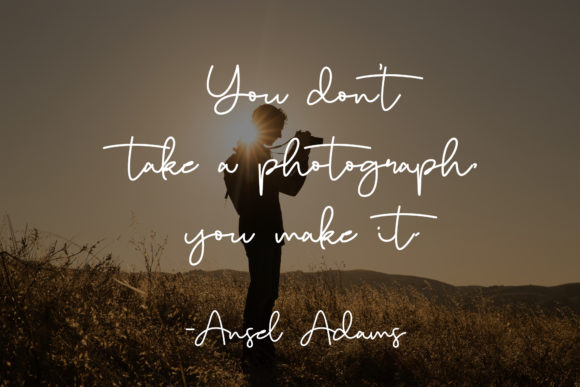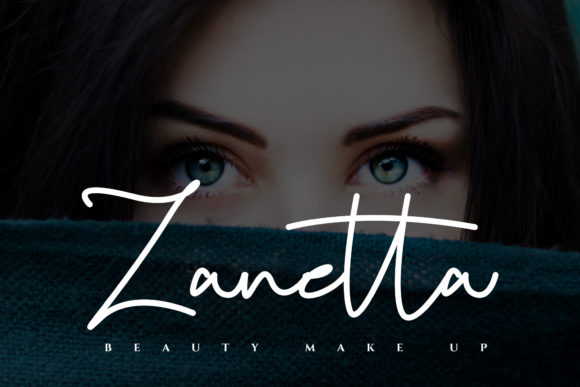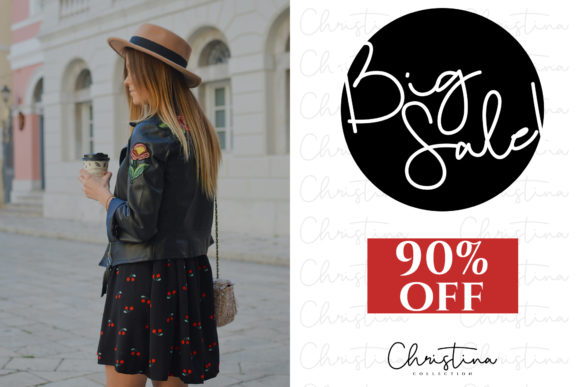
Introduction to Dailymunt Font
Dailymunt is a fashionable and delightful script font.
It looks radiant on quotes, greeting cards, logos, business cards and every other design which needs a personalized touch .
Why Choose Dailymunt Font?